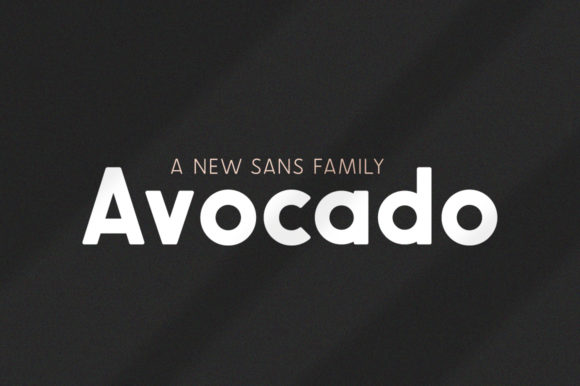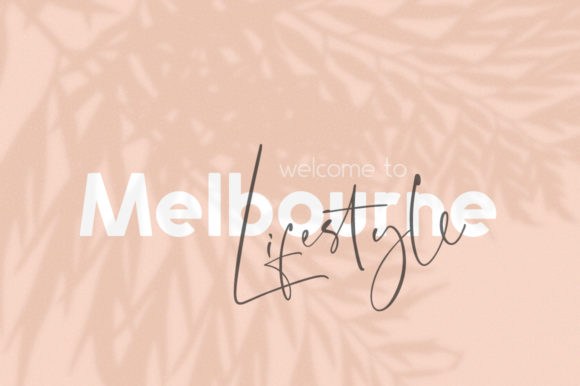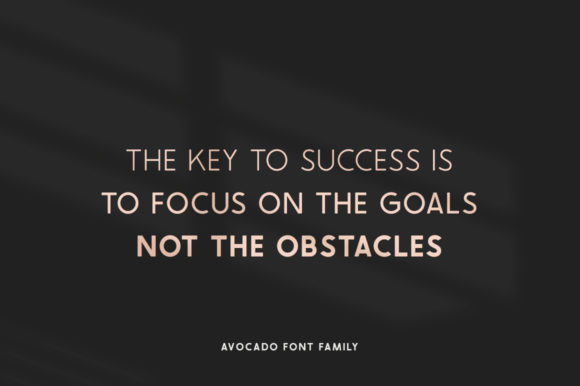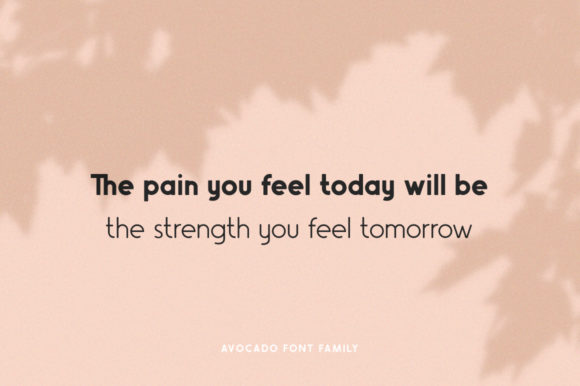
Avocado Family Font
About the Avocado Family Font
Elevate your designs with Avocado Family Font, a font that combines sophistication with readability. Avocado is a brand new font that includes three fabulous weights – Regular, thick and thin! They all work perfectly with each other and are the ideal accompaniment to scripts and serifs. Download this trio and see for yourself!
Avocado’s versatility shines in display applications such as headlines, logos, and short-form text on packaging or posters. Its three weights allow for impactful hierarchy and visual interest. However, the thin weight’s delicate strokes make it unsuitable for small sizes or lengthy body text. Avoid using it for UI elements or extended reading.
The Avocado Family’s friendly, yet modern personality pairs well with a variety of fonts. Consider pairing the Regular or Thick weights with a classic serif like Garamond for a sophisticated look, or a geometric sans-serif like Futura for a clean, contemporary feel. A playful script font could complement the lighter weights for branding projects needing a touch of whimsy.
The bold, yet approachable nature of Avocado makes it ideal for brands targeting a younger demographic or those with a focus on natural, healthy products. It’s equally suitable for projects needing a fresh, optimistic aesthetic.